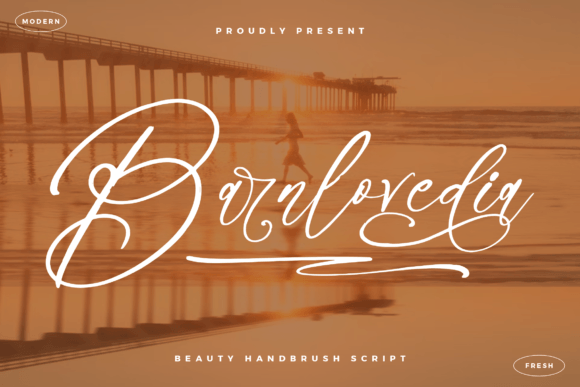
Introducing Barnlovedia Font, the ultimate choice for minimalist design enthusiasts! Created by the talented Glorytype Studio, this exquisite handbrush script is guaranteed to take your projects to new heights of beauty and elegance.
With its graceful strokes and captivating style, Barnlovedia Font is perfect for a wide range of applications. Whether you're designing a logo, working on branding projects, or creating stunning homeware designs, this font will add a touch of sophistication and charm to your work.
Imagine the impact of using Barnlovedia Font on your product packaging, mugs, quotes, posters, shopping bags, t-shirts, book covers, name cards, invitation cards, greeting cards, labels, photography, watermarks, and special events. The possibilities are endless!
What sets Barnlovedia Font apart is its ability to evoke emotions and create a lasting impression. Its unique script taste adds a sense of personality and character to your projects, making them truly memorable.
This font is not just a tool; it's a creative companion that will inspire you to push the boundaries of your imagination. Its versatility allows you to experiment with various design styles and create something truly remarkable.
But that's not all. Barnlovedia Font is also designed to be user-friendly, ensuring a seamless experience for both beginners and experienced designers. Its clean and legible characters make it easy to read, while its extensive language support ensures that you can use it for projects worldwide.